Tillamook
Tillamook is a heritage dairy brand that’s been around for over 110 years. To support a packaging refresh that honored their legacy, we partnered with Turner Duckworth to design a custom logo inspired by historical marks from Tillamook’s past.
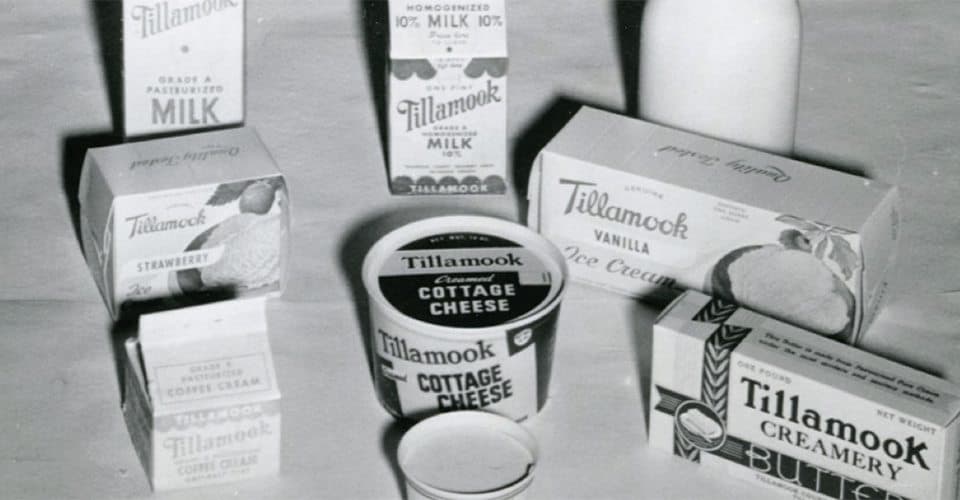
The result is a casual, modern script logo featuring distinctive details—including a custom “Ti” ligature and looped “o”s—that nod to the brand’s rich history while feeling fresh and approachable.